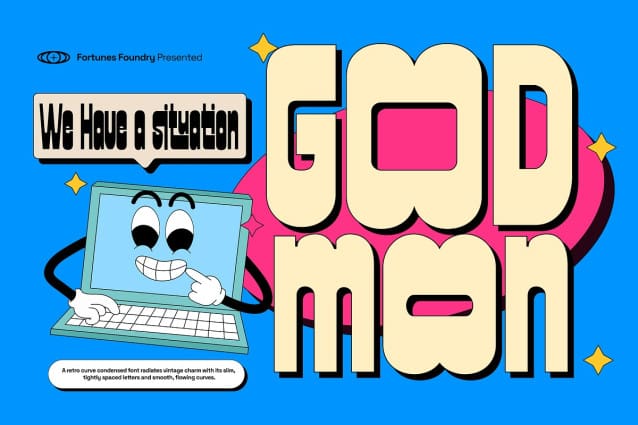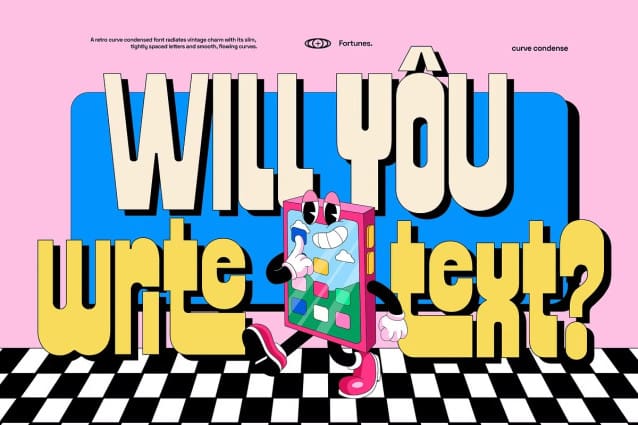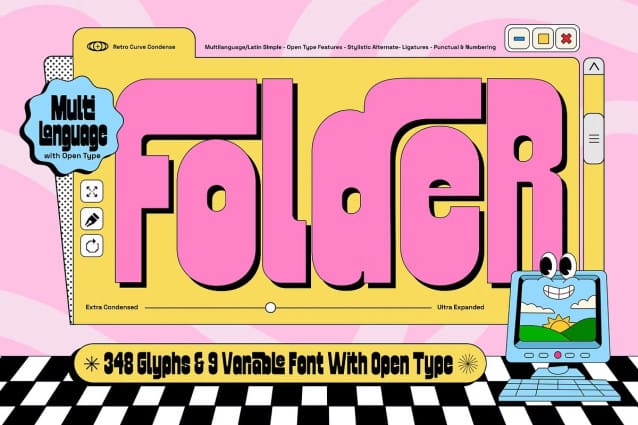
Folder Retro Font
Folder Retro Font a retro curve condensed font with round corners embodies a nostalgic charm, blending vintage aesthetics with modern simplicity. Its condensed letterforms save space while maintaining legibility, making it ideal for bold headlines and stylish posters.
The smooth, rounded corners add a soft, approachable feel, evoking warmth and playfulness. Perfect for retro-themed designs, this font channels the essence of mid-century style, with sweeping curves and streamlined shapes reminiscent of classic signage, advertisements, and packaging. Its unique balance of compact structure and flowing lines ensures versatility, seamlessly adapting to both digital and print media, giving designs a timeless yet trendy appeal.